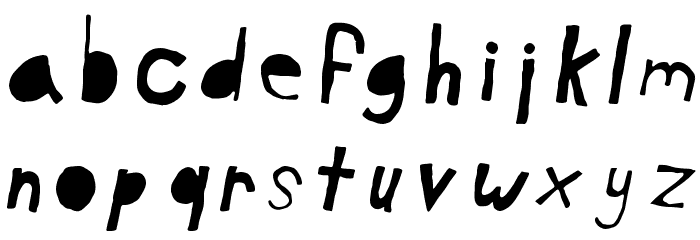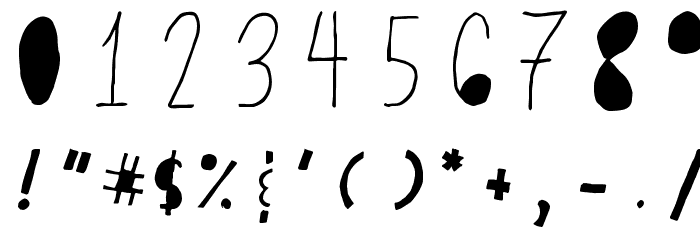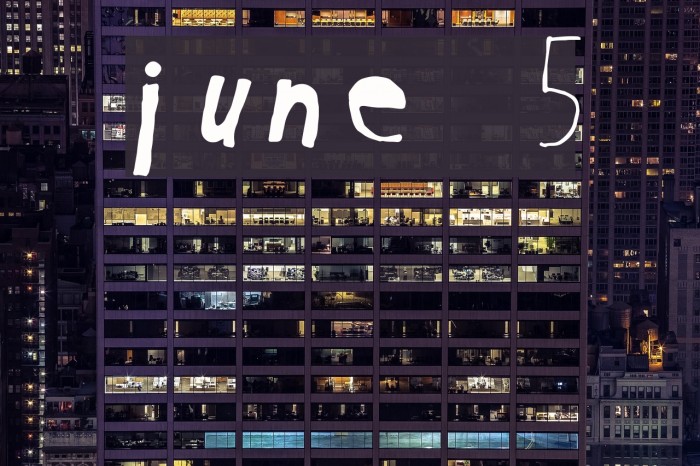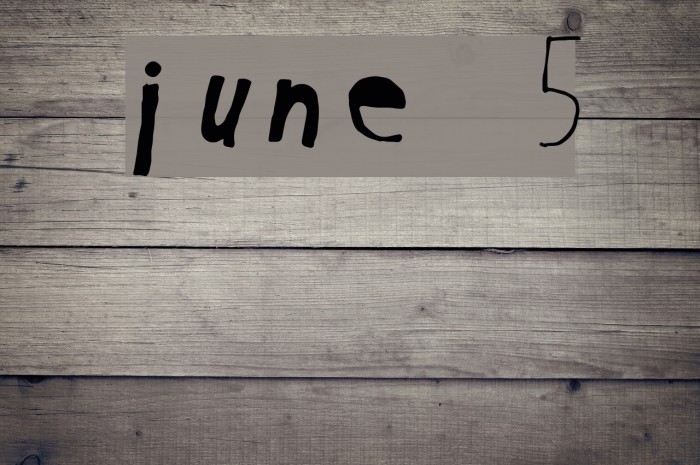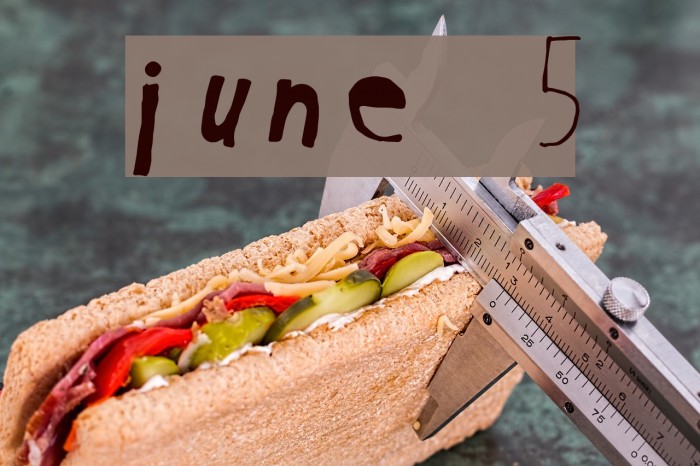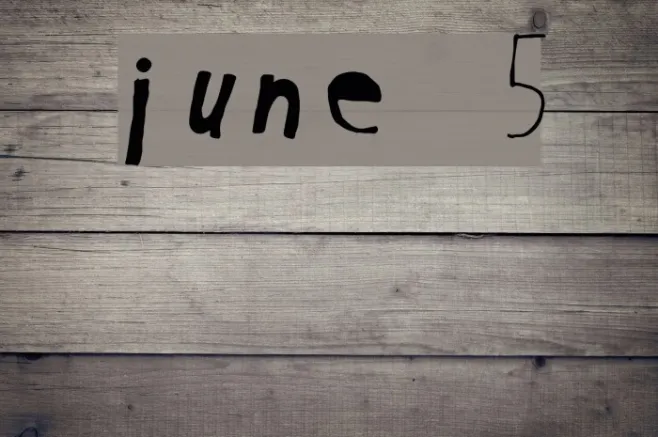
June 5 Font
This font features a playful and irregular handwritten style, characterized by its uneven stroke widths and quirky letterforms. Each character exhibits a unique personality, with some letters leaning or varying in size, adding to the font's charm. The uppercase and lowercase letters maintain a consistent style, while the numbers and special characters blend seamlessly with the overall design. The font's informal and whimsical nature makes it ideal for creative projects that require a touch of individuality and fun.
A playful, irregular handwritten font with quirky letterforms.
- Proposed Projects: Ideal for greeting cards, children's books, playful branding, and creative posters.
- Overall Style: Playful, Quirky
- Use Case: Headlines, Creative projects, Informal text